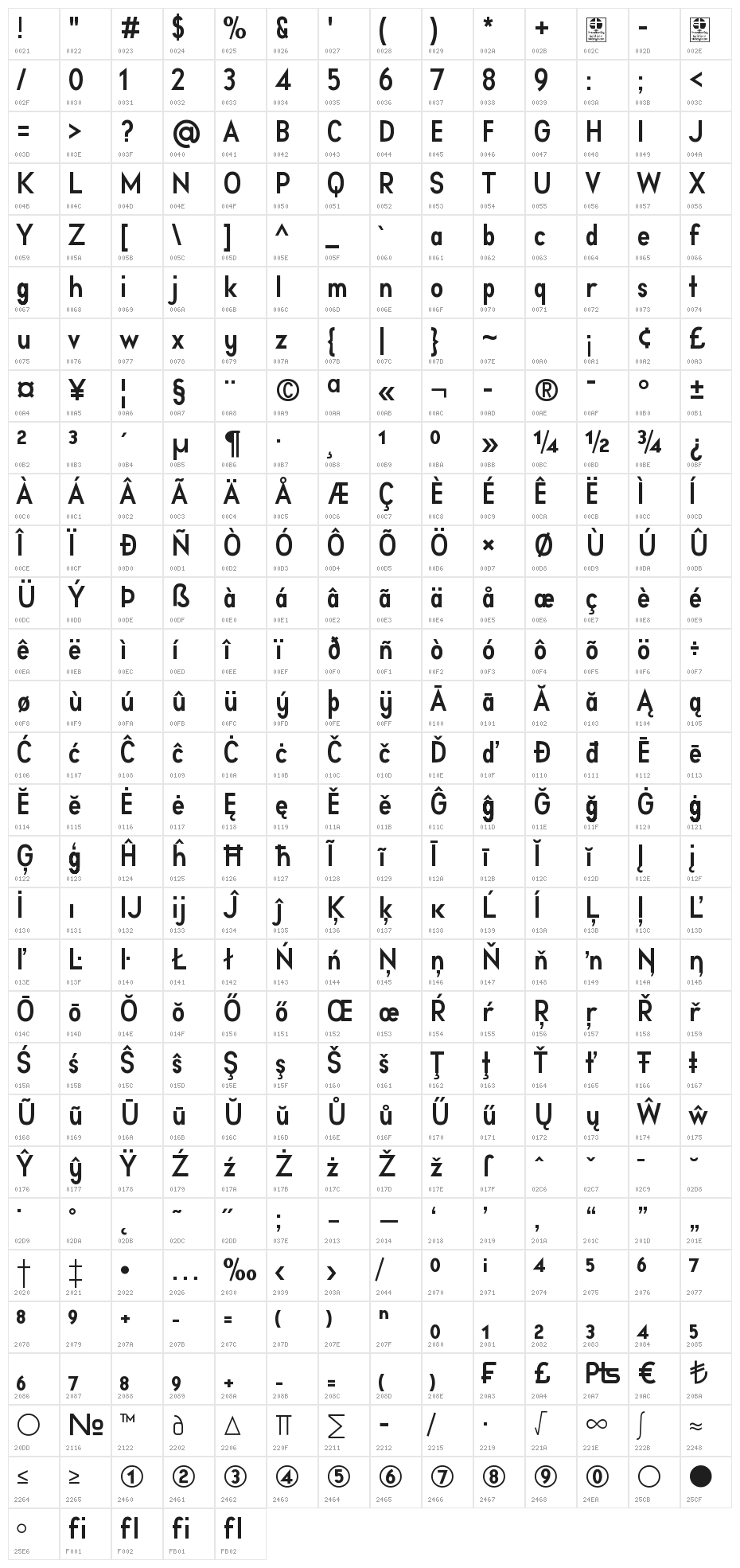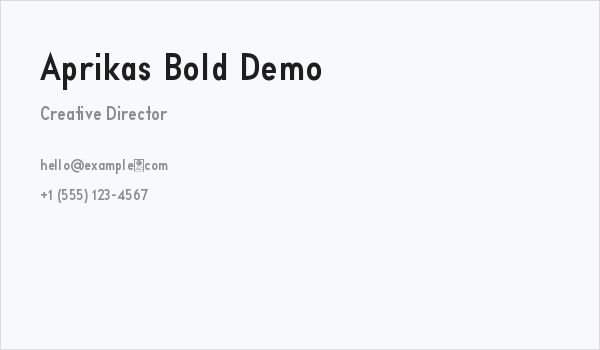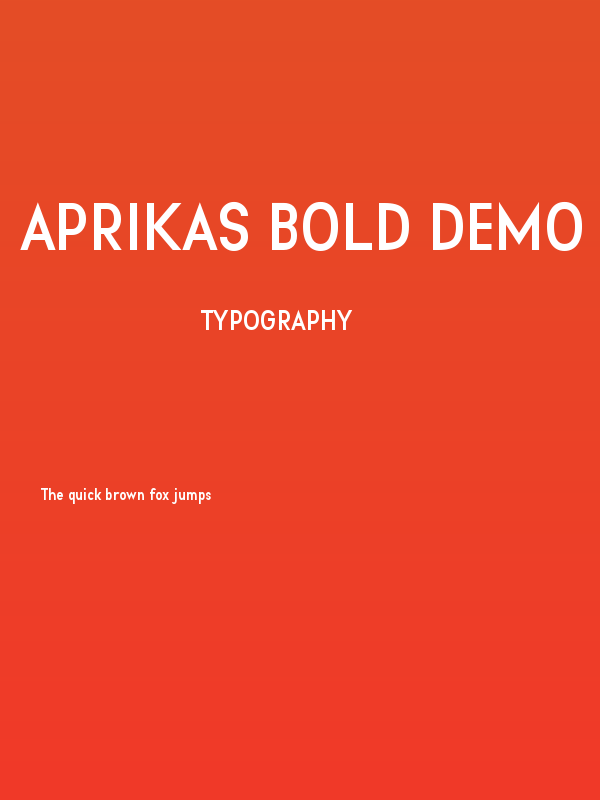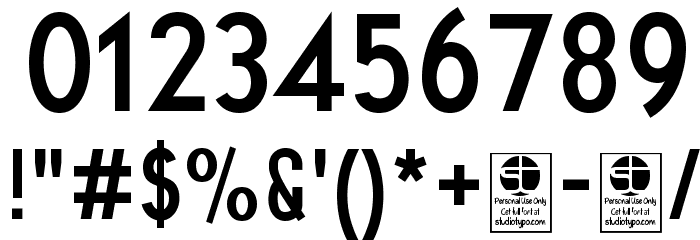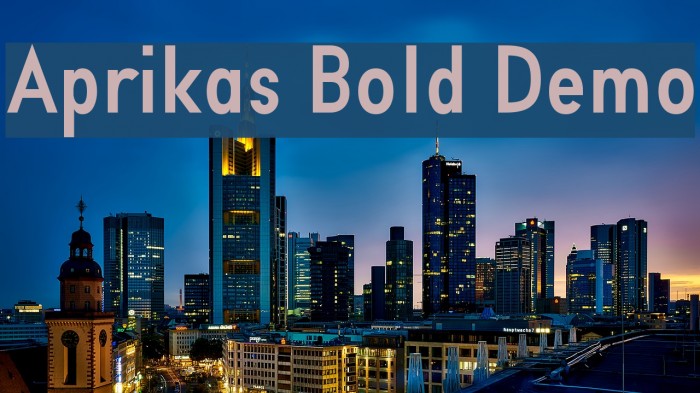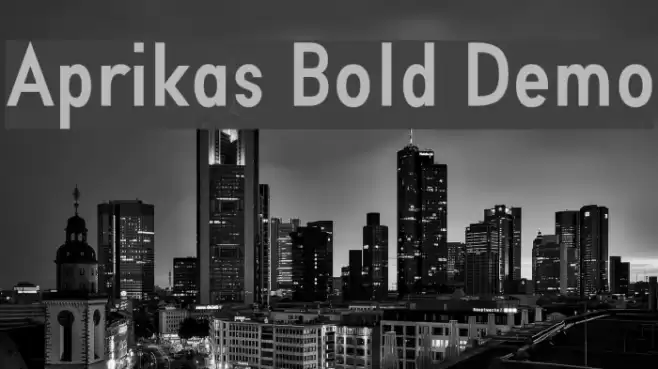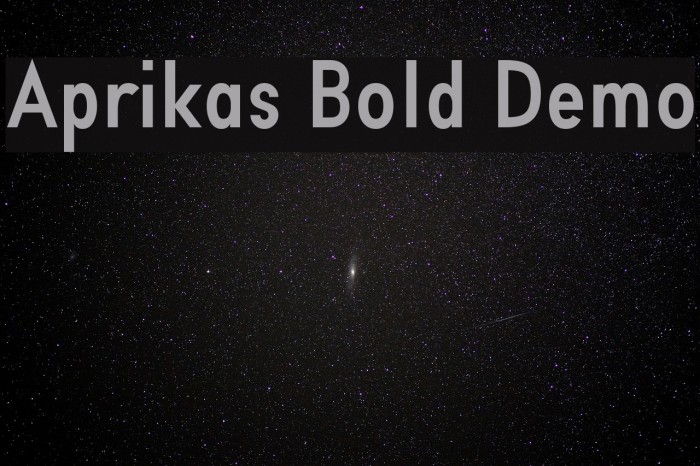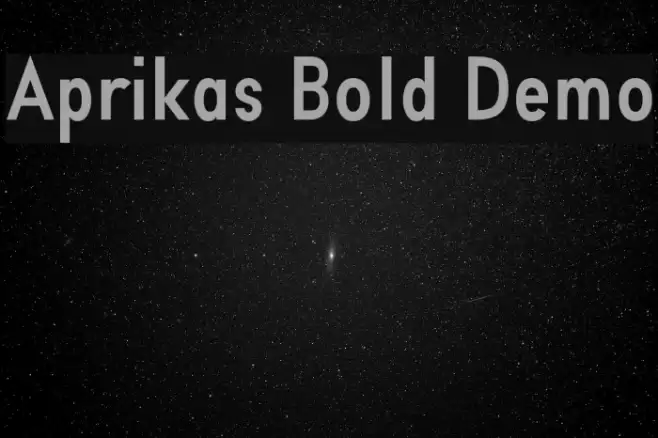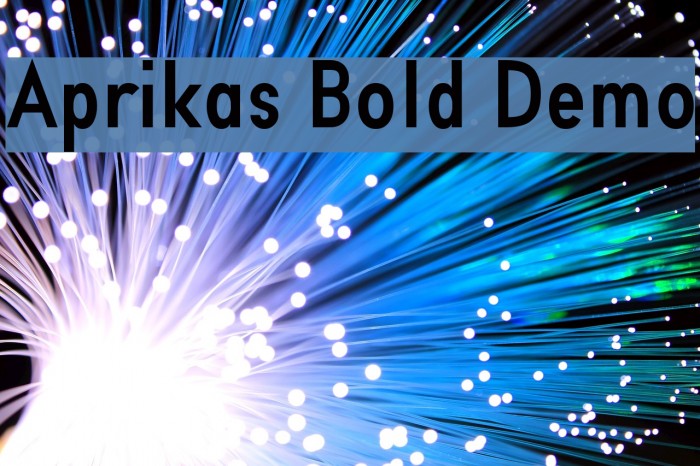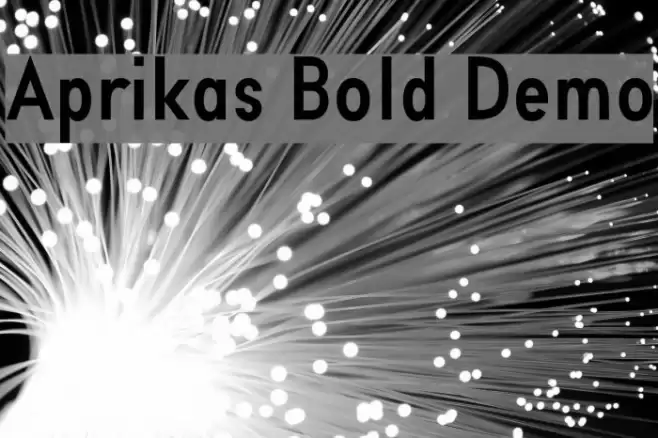
Aprikas Bold Demo Font
Aprikas Bold Demo Description
This font exhibits a bold and modern sans-serif style, characterized by clean lines and a uniform stroke width. The uppercase and lowercase letters are well-proportioned, offering a strong visual presence. The numerals are clear and easily distinguishable, making them suitable for various applications. Special characters are included, maintaining the font's cohesive design. The overall appearance is sleek and professional, ideal for contemporary design projects.
| Use Case | Headlines, Logos, Digital Media |
| Proposed Projects | Ideal for branding, advertising, headlines, and digital media projects that require a strong, modern aesthetic. |